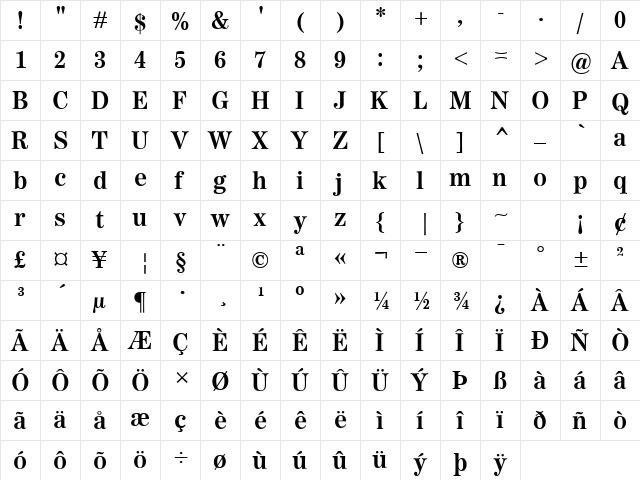
Worldwide Bold
Design Context for Worldwide Typeface
Worldwide offers clean, dependable letterforms without strong stylistic allegiance, making it a practical choice for designers who need flexibility. The heavy weight commands attention and anchors typographic hierarchies.